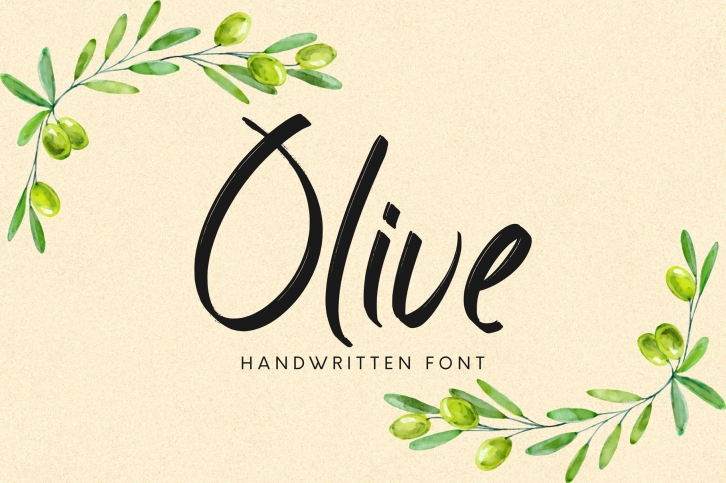
Olive FONT Download
Olive is a gorgeous font that was realeased on March 12, 2020. The font can be used in many style contexts and design environments. Perfect for invitations, magazines, websites, logos, and more! It was designed by Omotu and the file size is 18.34 MB. Thanks for checking out this font!